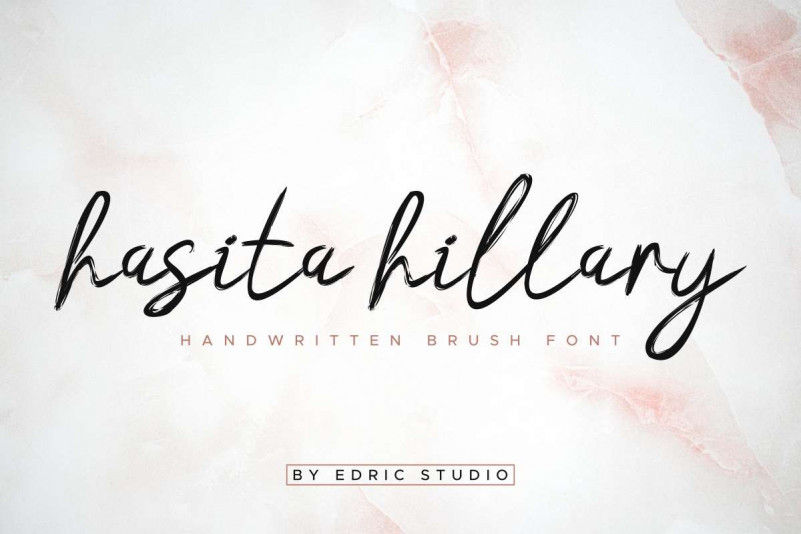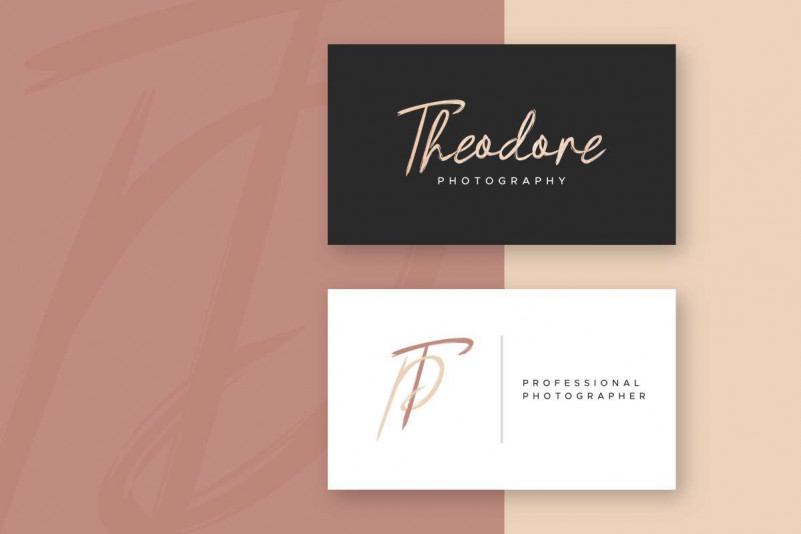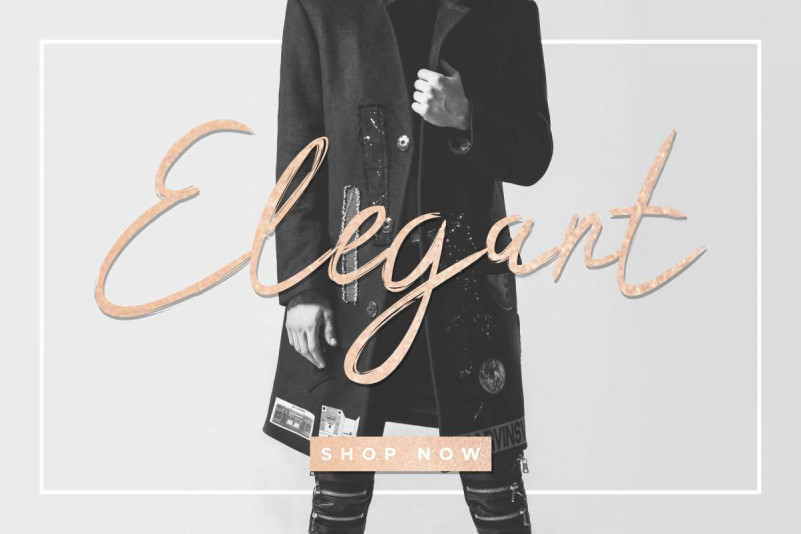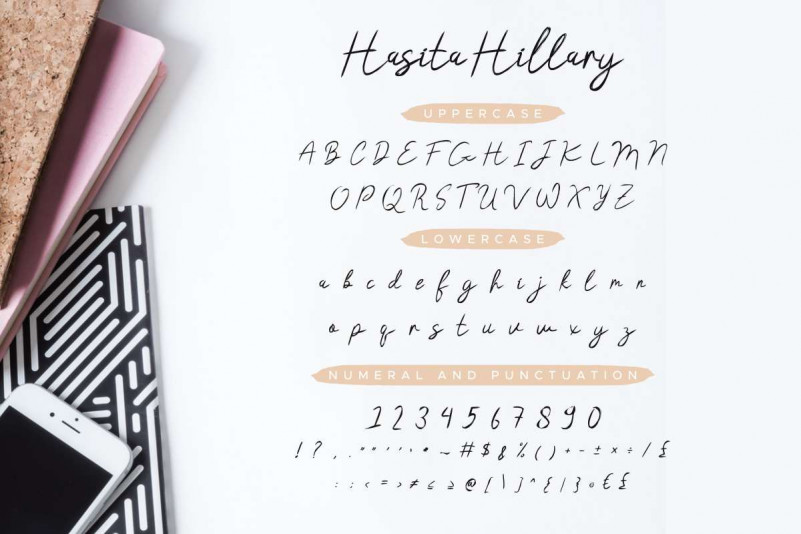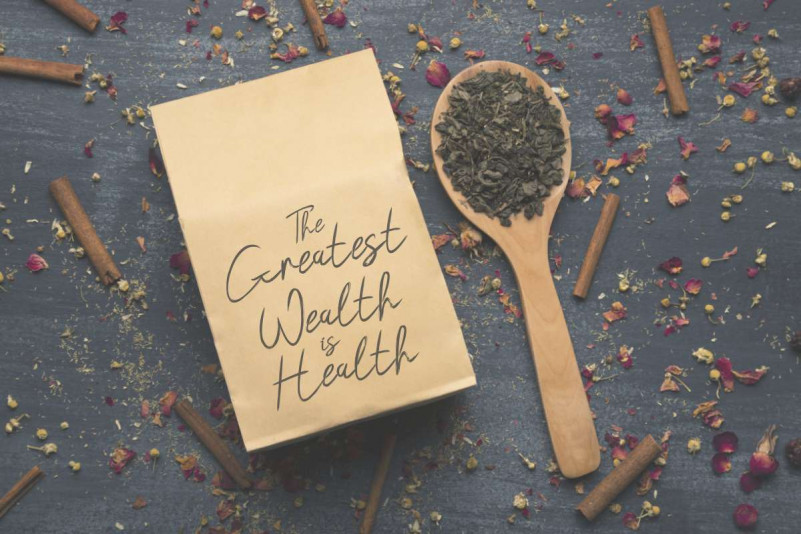
Hasita Hillary Brush Font
Please welcome! Hasita Hillary Brush Font This is our newest font from our lovely font designer: Fahri. This typeface, handcrafted from our Studio, Situated here in Bandung, Indonesia. Made with love and passion. 🙂
Hasita Hillary Brush Font is a brush calligraphy typeface with unique and sophisticated style. The typeface has a stunning characters set, perfectly kerned and spaced. The style character of this font is elegant, stylish, sophisticated and classic brush calligraphic style.
Hasita Hillary Brush Font will be great for any projects including : branding, logotype, stationery, business card, signage, flyer, brochure etc. Almost all industries will be match for this typeface: wedding, events, real estate, architect, law firm, florist, gardening, makeup artist, travel, hotel, musician etc